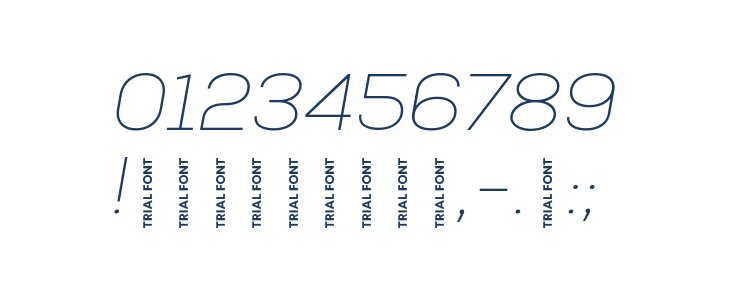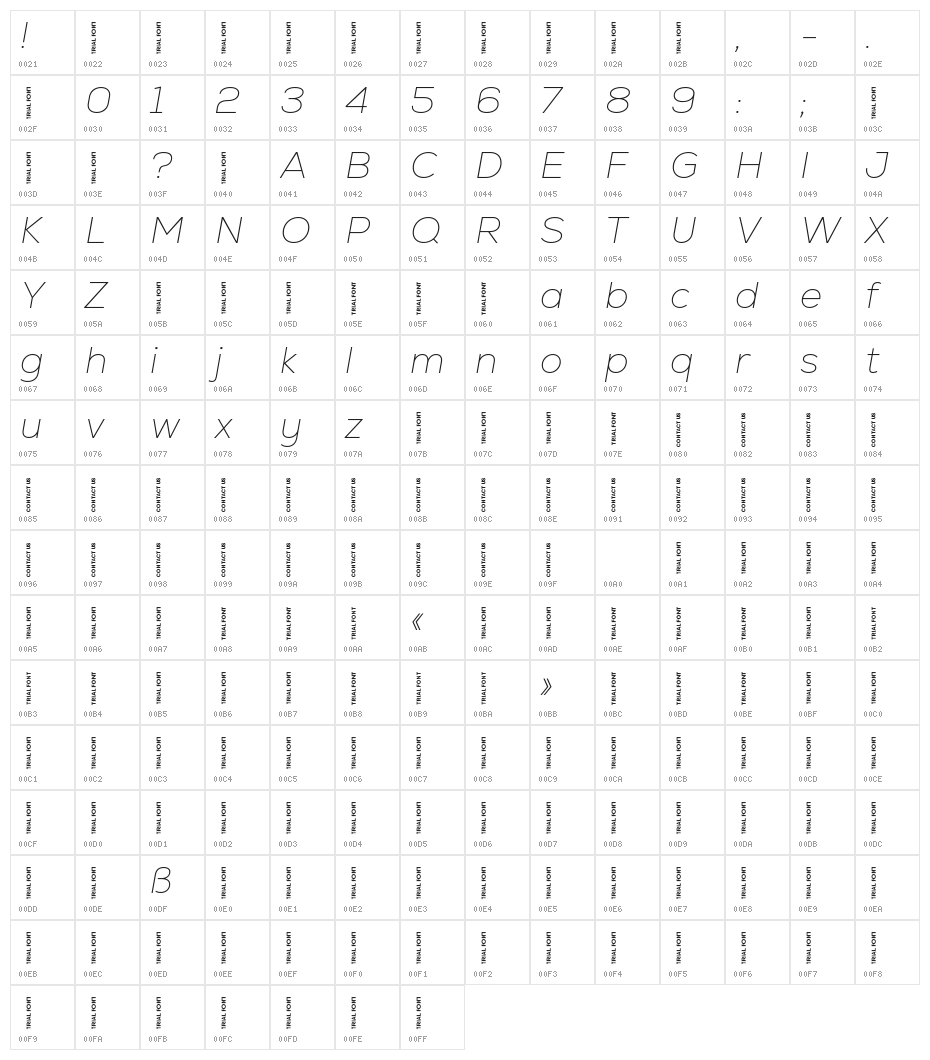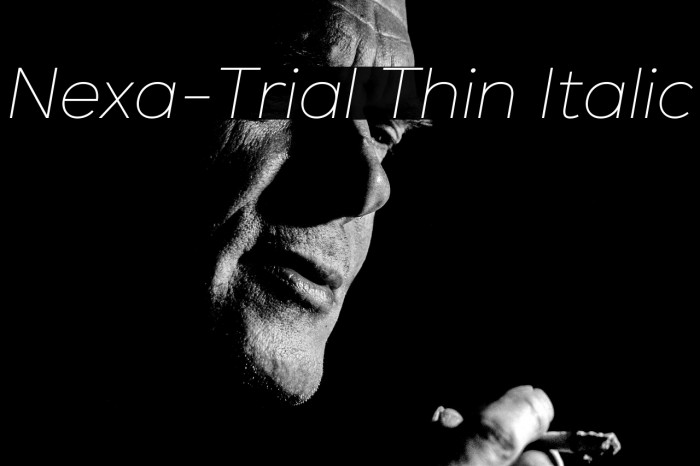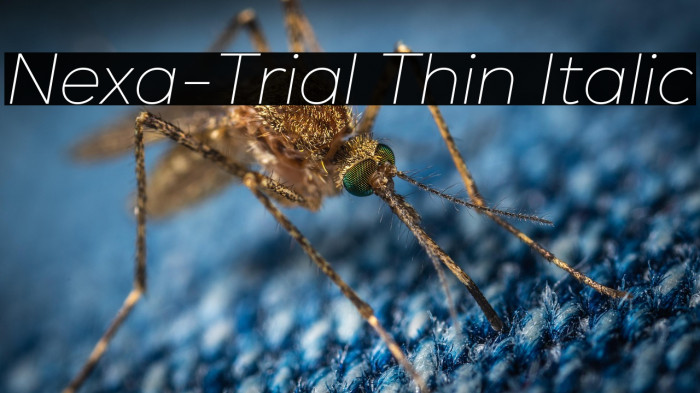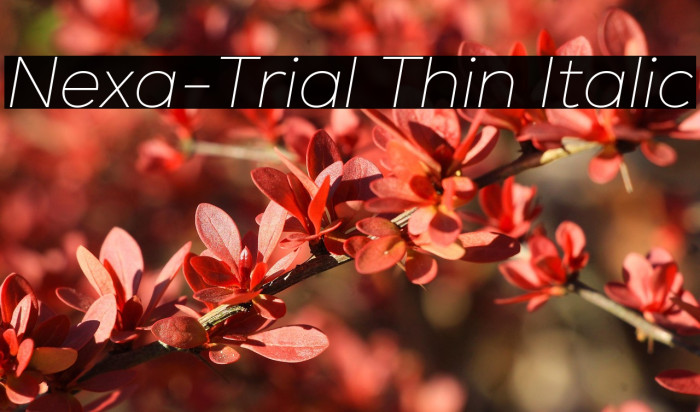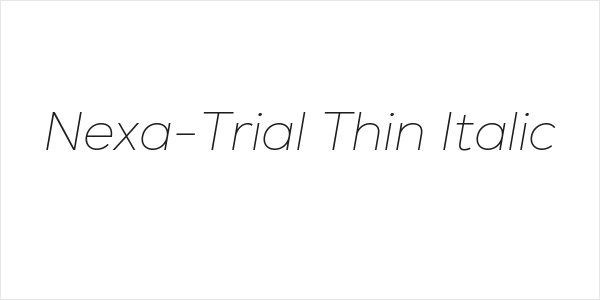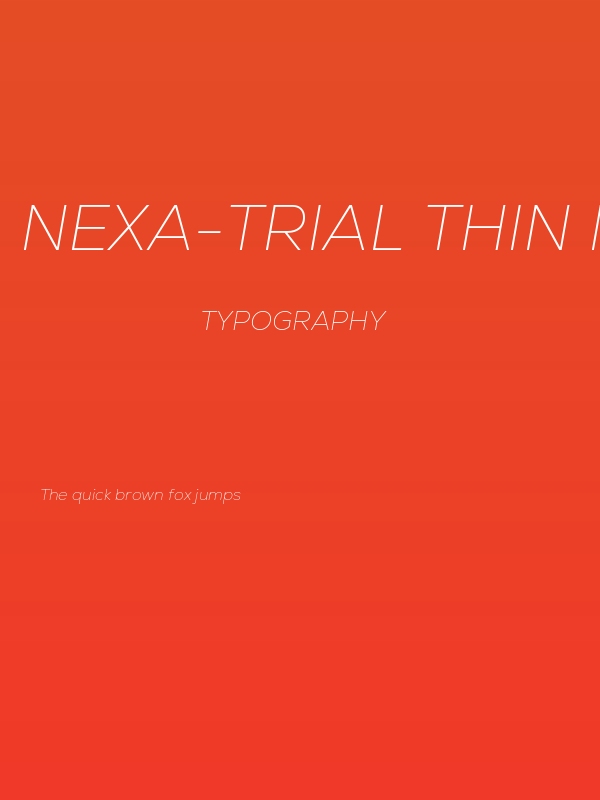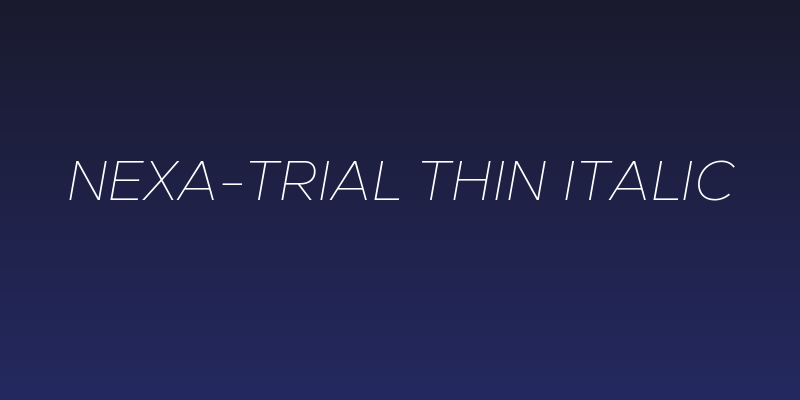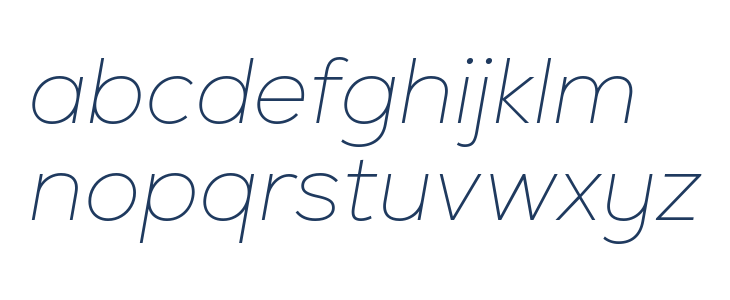
Nexa-Trial Thin Italic Font
Nexa-Trial Thin Italic Description
This font features a sleek and modern design with thin, clean lines that convey a sense of elegance and sophistication. The italic style adds a dynamic and fluid touch, making it suitable for contemporary projects. The characters are well-proportioned with a consistent stroke width, ensuring readability and a polished appearance. The font's minimalistic approach is ideal for creating a refined and professional look, whether used in digital or print media.
| Proposed Projects | Ideal for branding, fashion magazines, modern websites, and elegant invitations. |